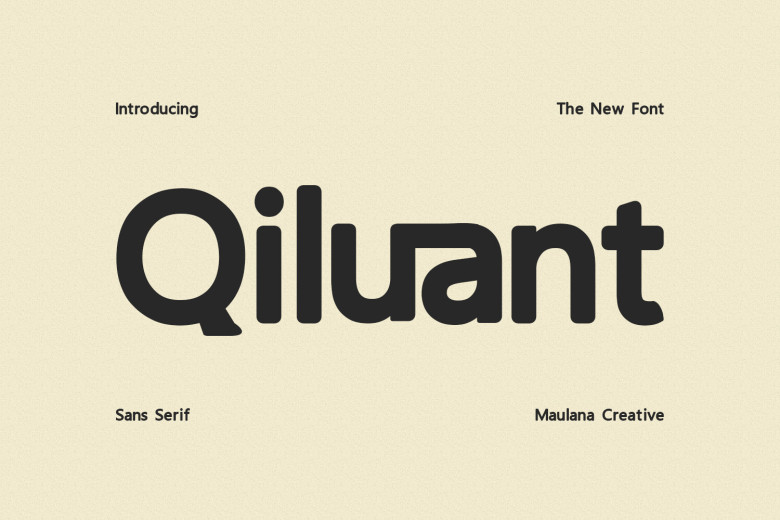
Qiluant Font
Qiluant is a display font with high contrast; it has peculiar shapes to stand out and be attractive. It is ideal for headlines, posters, and logos as it provides your text with the contemporary and artistic flair. The font is unique and looks impressive, thus making saying and the message conveyed to those who will be reading it clear.
Qiluant Sans Serif Font